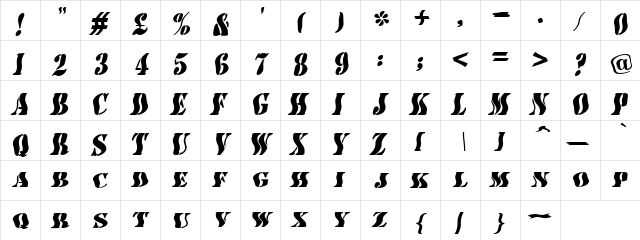
AustralianFlyingCorpsStencilSC Regular
Design Context for AustralianFlyingCorpsStencilSC Typeface
AustralianFlyingCorpsStencilSC has the rough pragmatism of spray-painted stencil signage, adding a raw, street-level authenticity to designs.
A strong choice for packaging that needs edge, warehouse aesthetics, and rough-and-ready visual identities.
Pro Tip: Use AustralianFlyingCorpsStencilSC at large sizes on packaging, posters, or apparel where the stencil cutaways read clearly. Avoid small sizes where those gaps become visual noise.